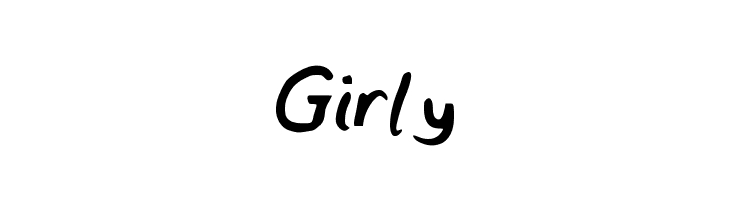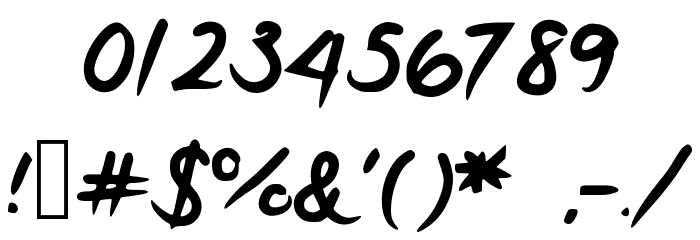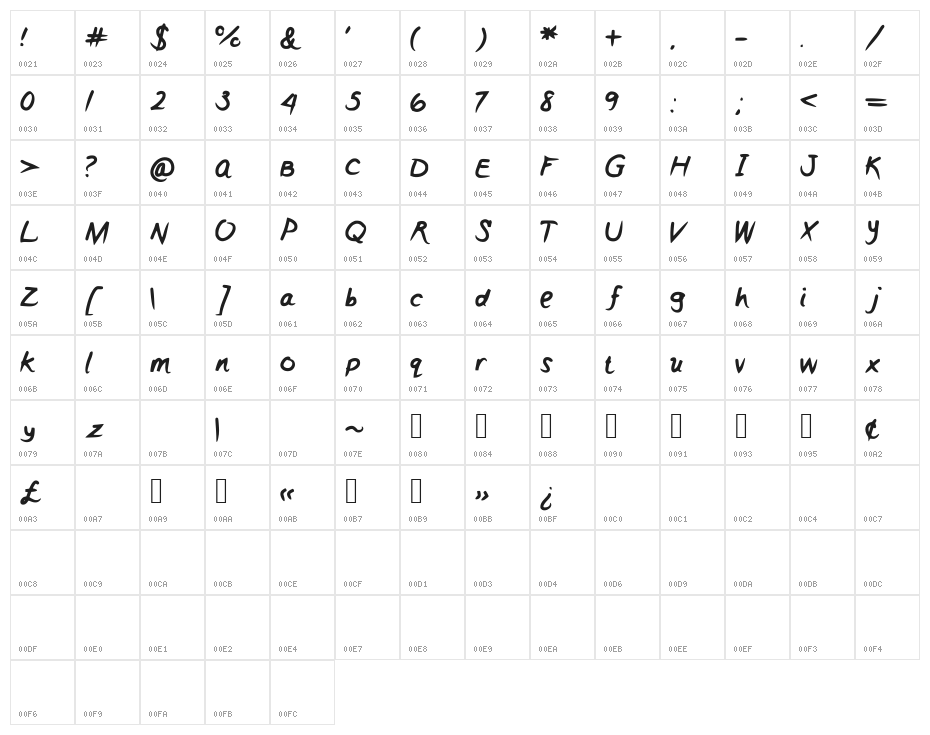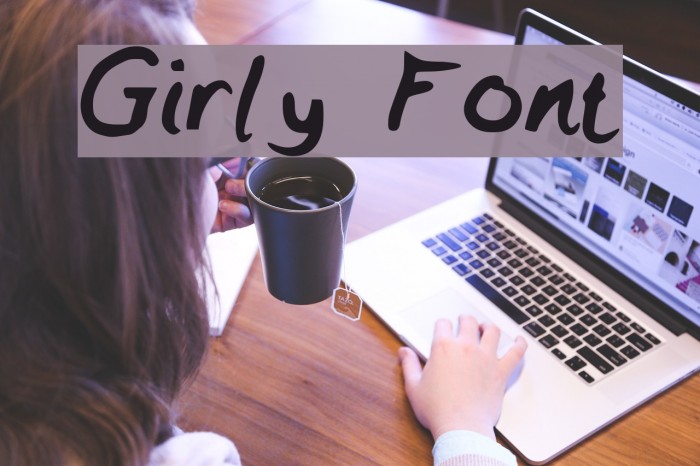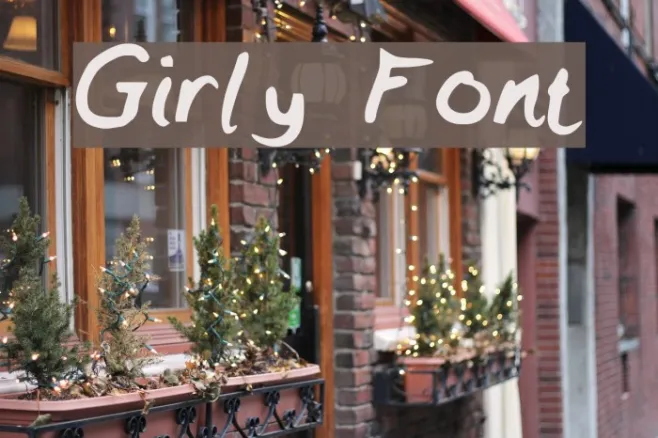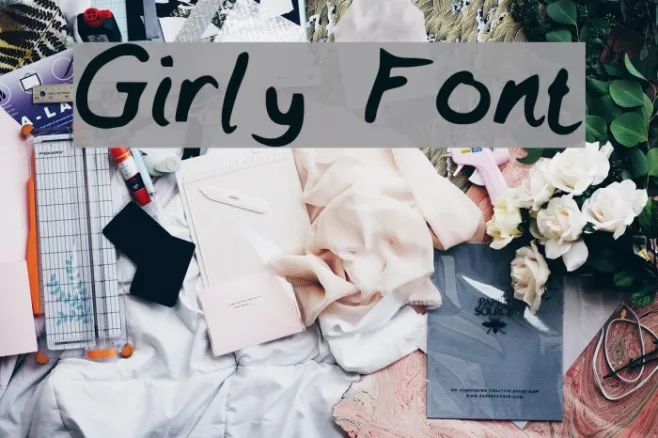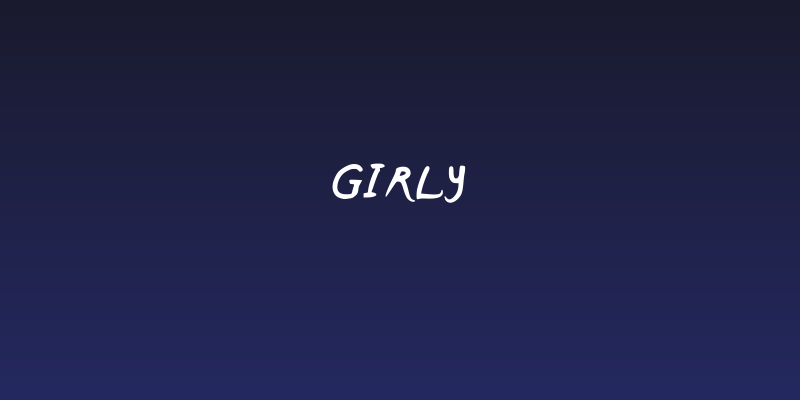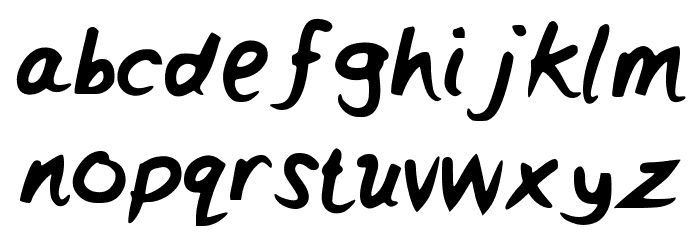
Girly Font
Girly Description
This font features a playful and casual handwritten style, characterized by its smooth, flowing curves and slightly irregular letterforms. The uppercase and lowercase letters maintain a consistent style, with a slight slant that adds to its informal appearance. The numerals and special characters are designed to match the overall aesthetic, ensuring a cohesive look. The font's strokes vary in thickness, providing a medium contrast that enhances readability while maintaining its whimsical charm.
| Proposed Projects | Ideal for greeting cards, invitations, personal branding, and playful marketing materials. |